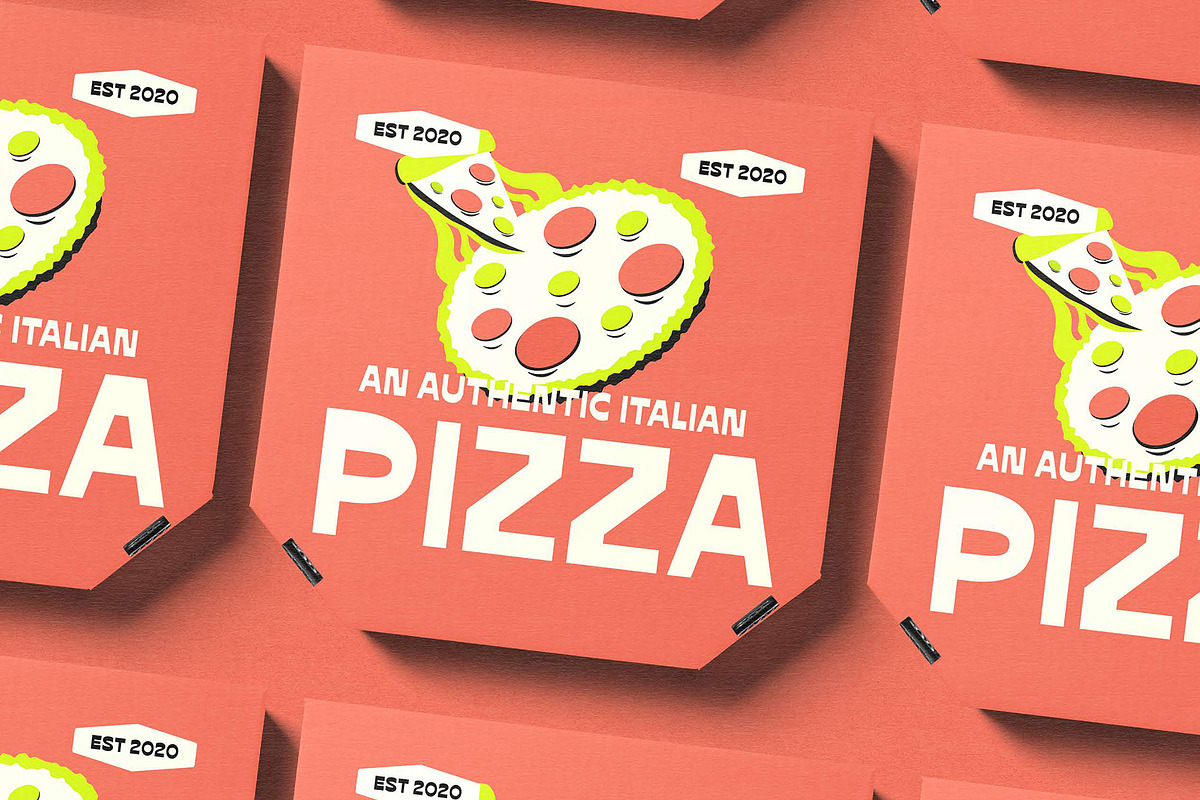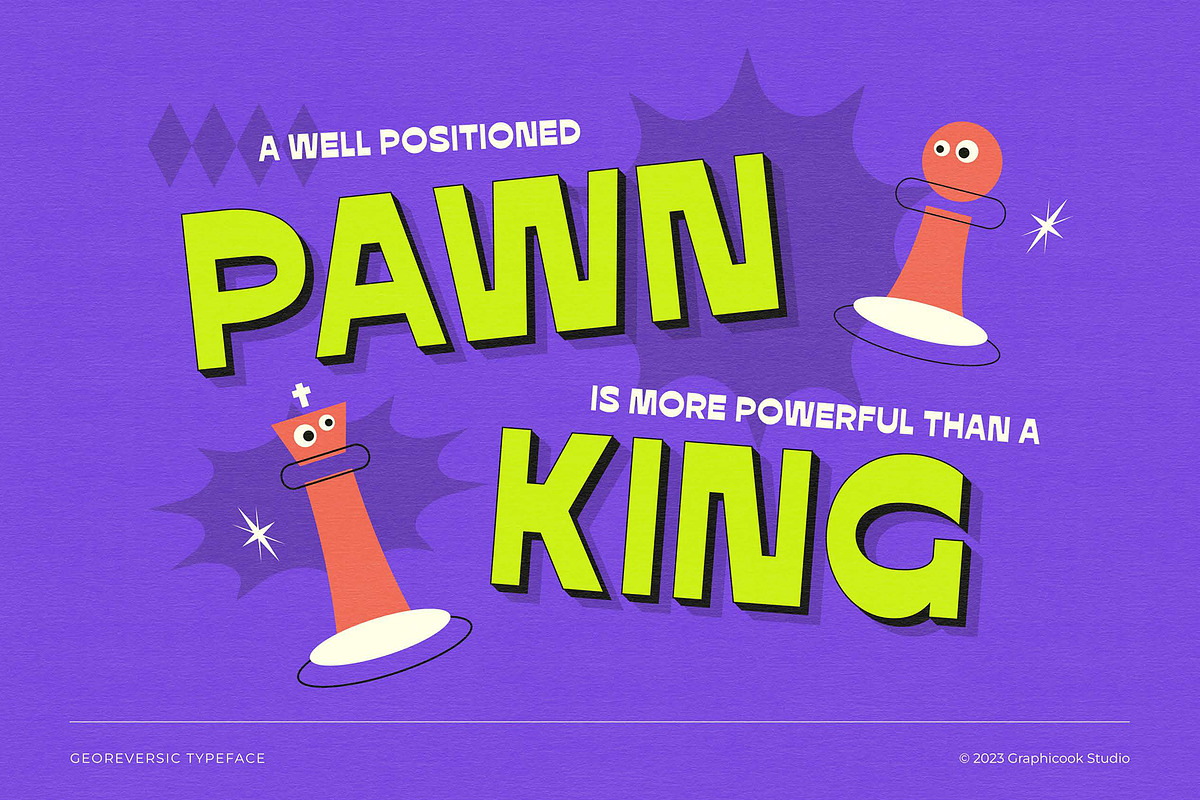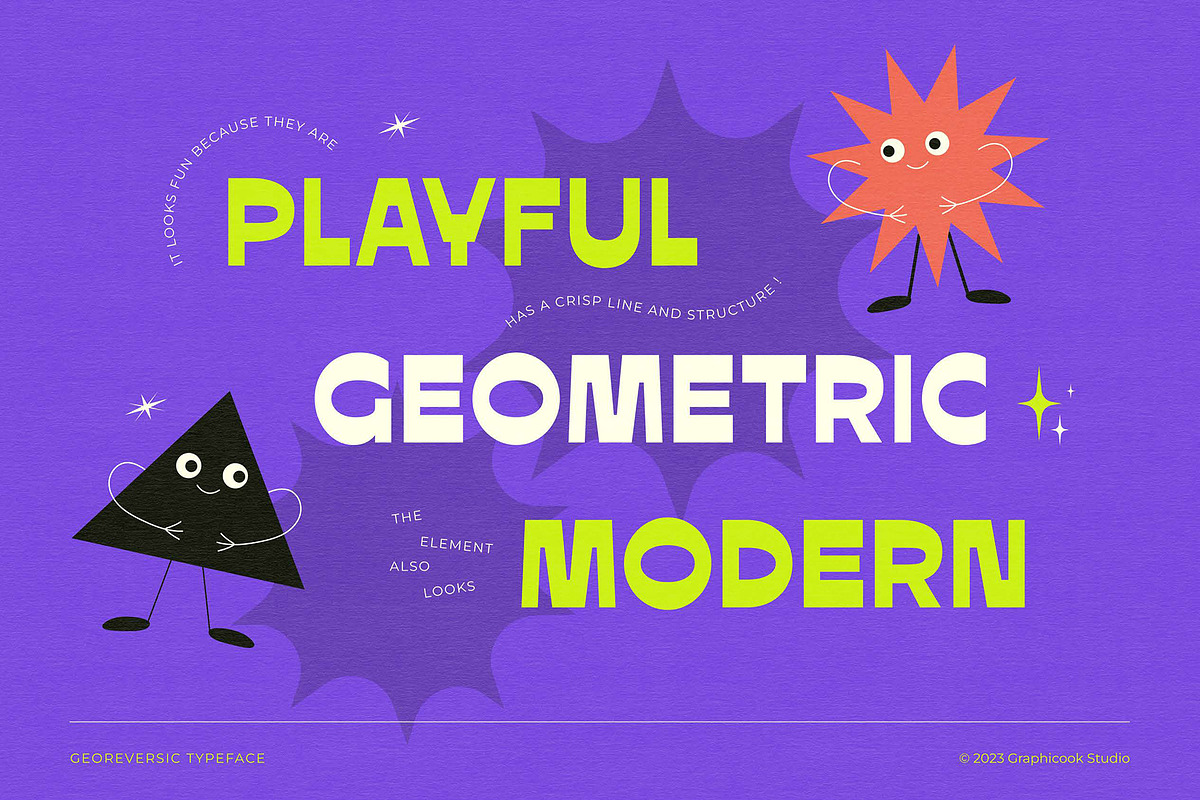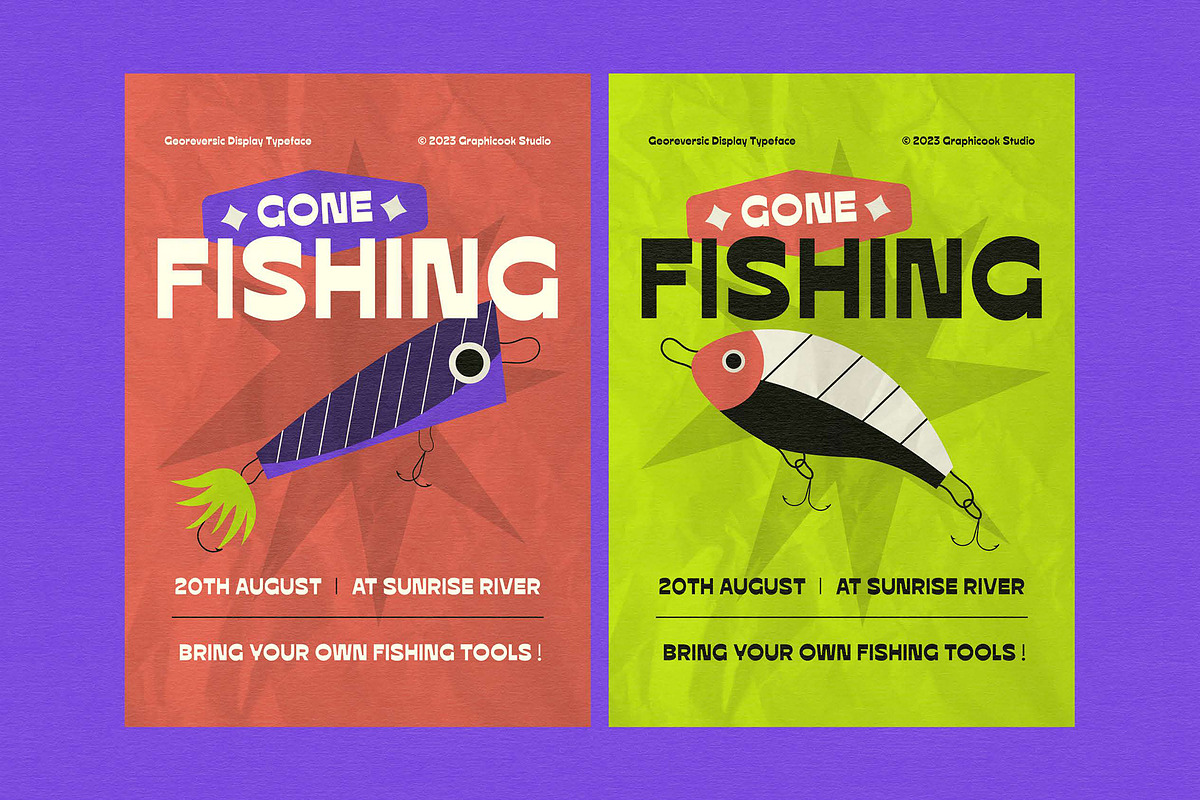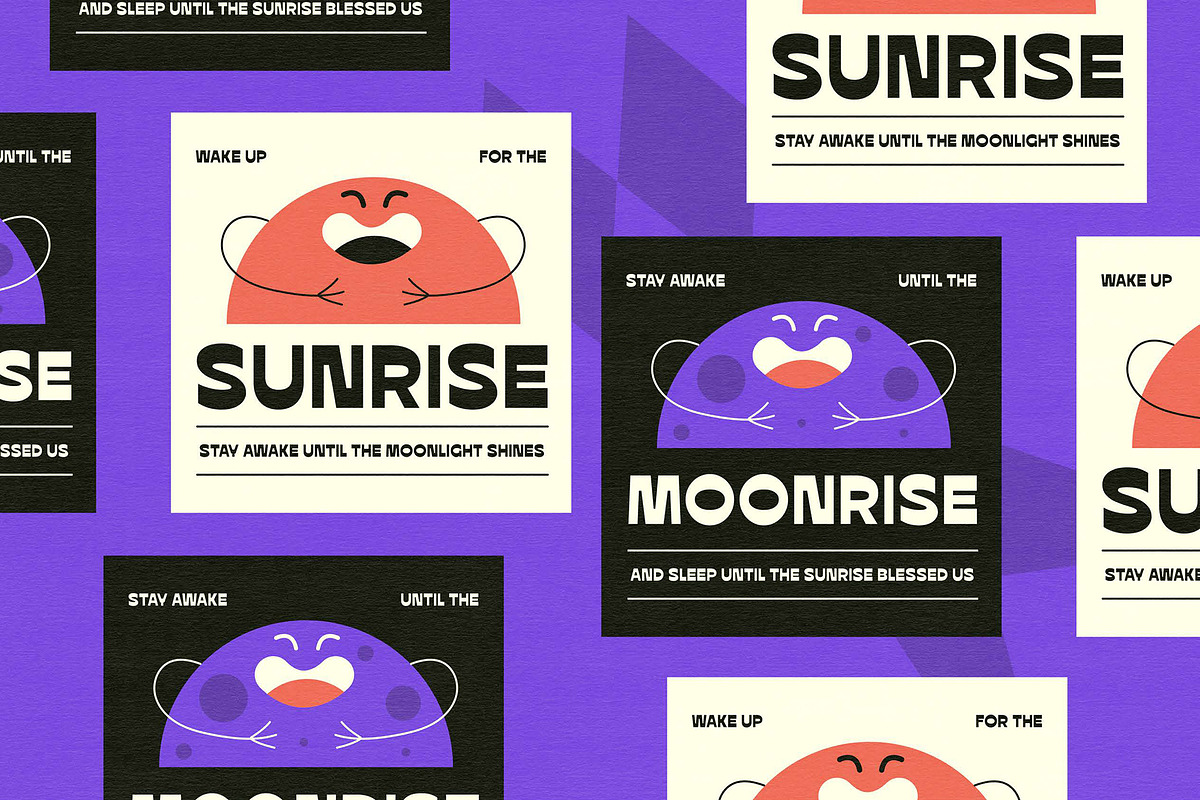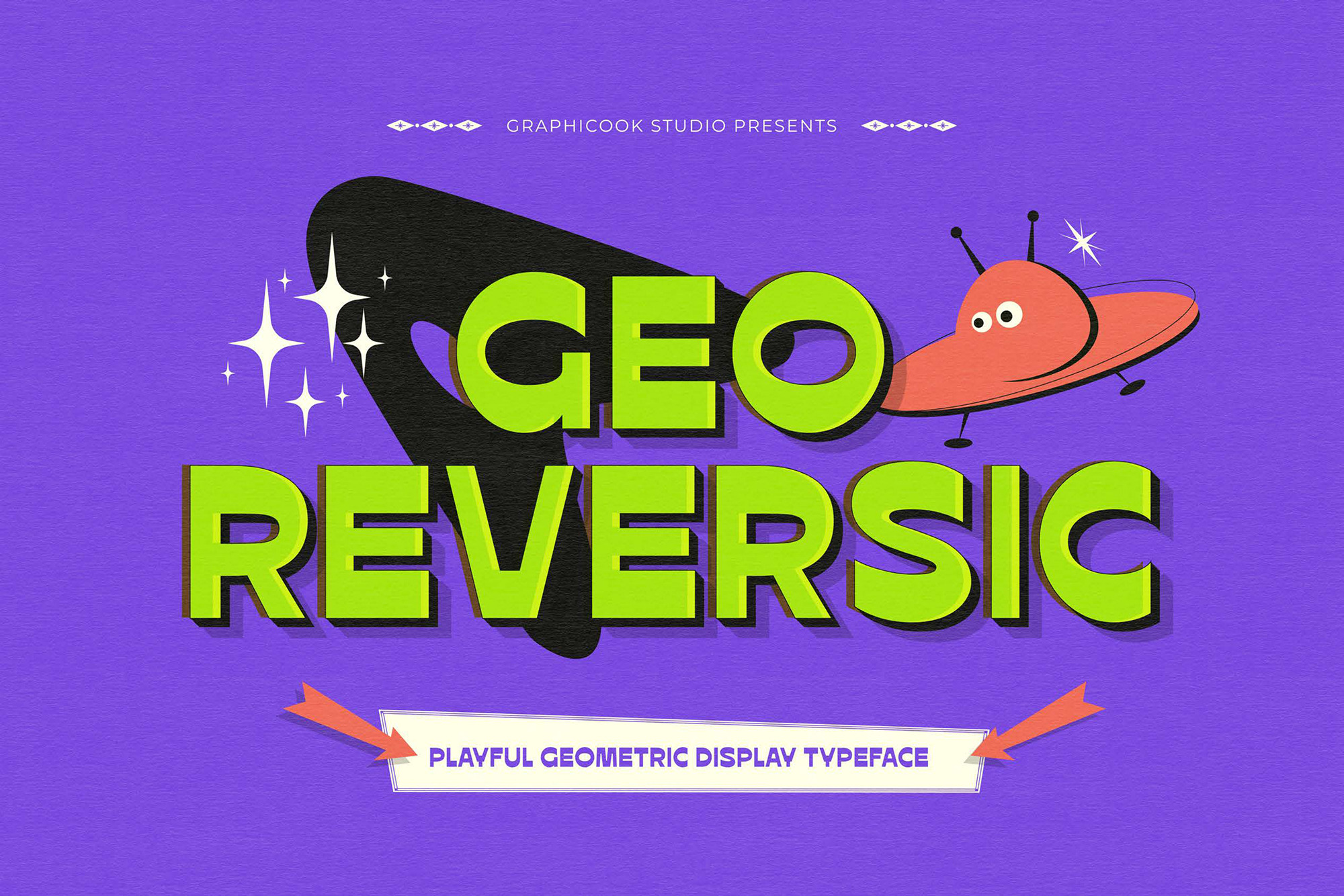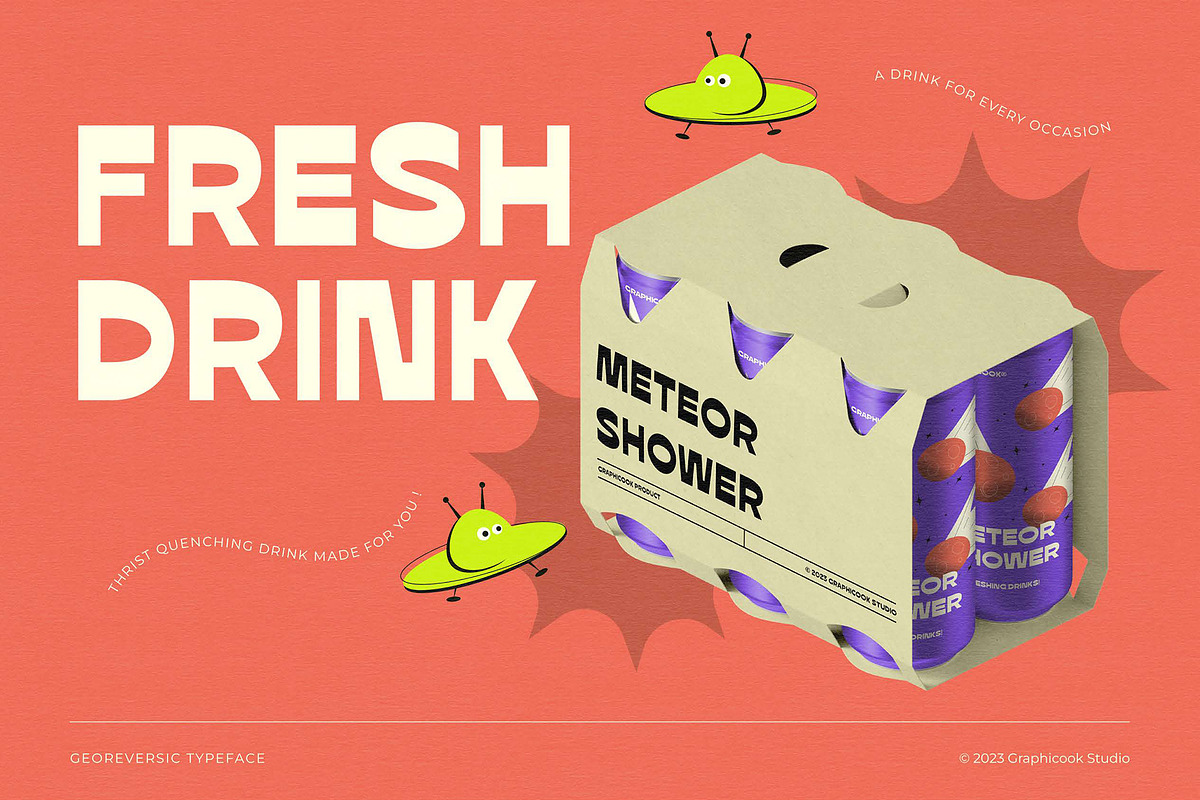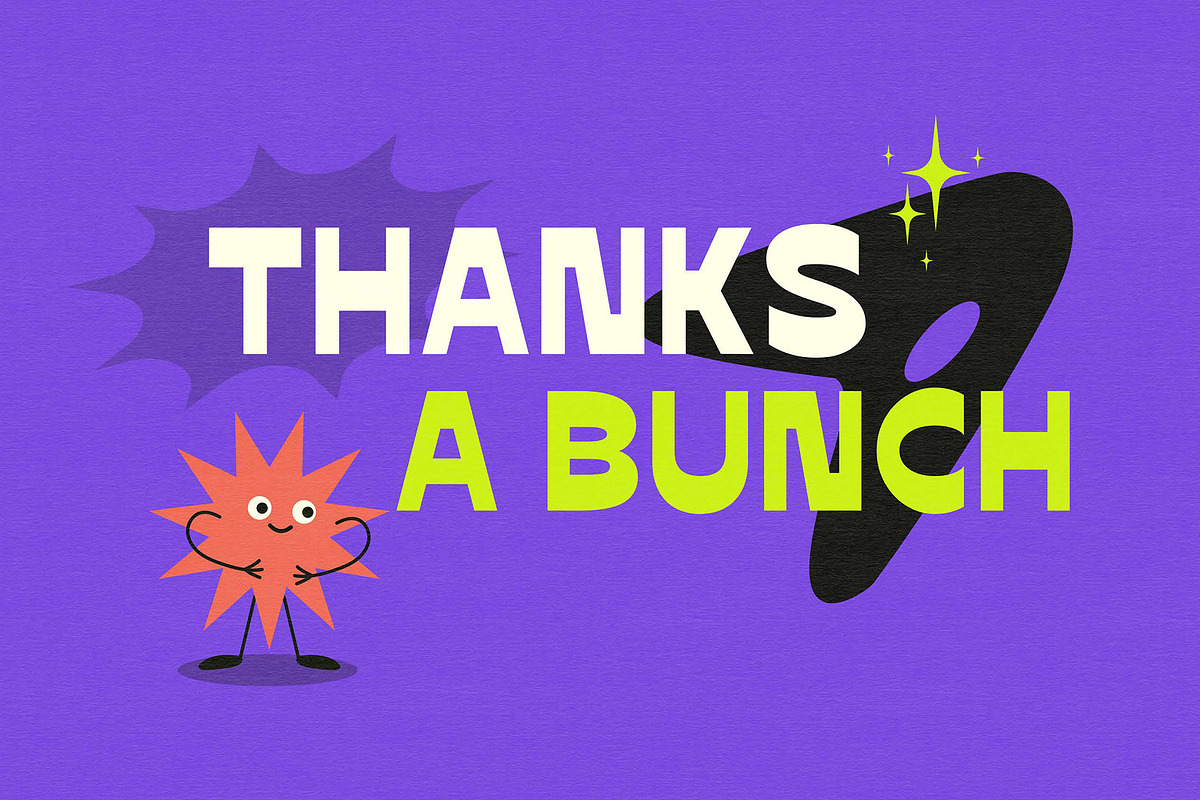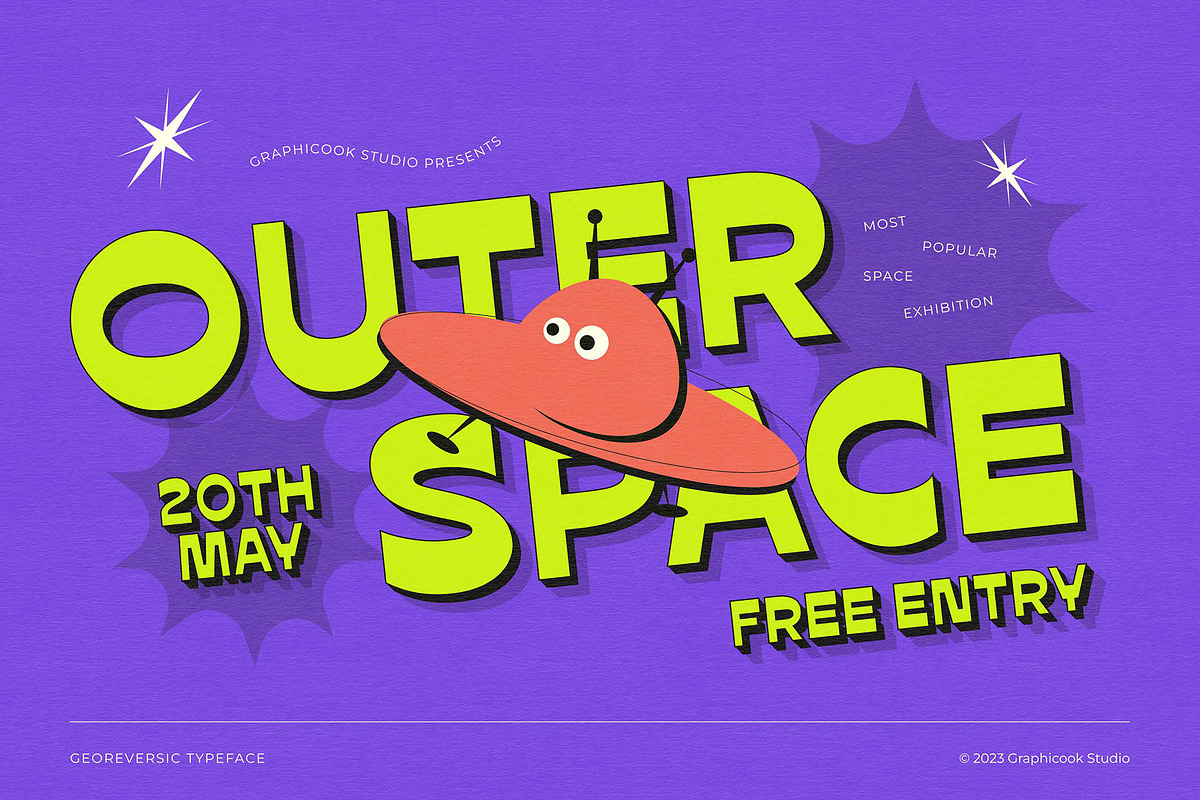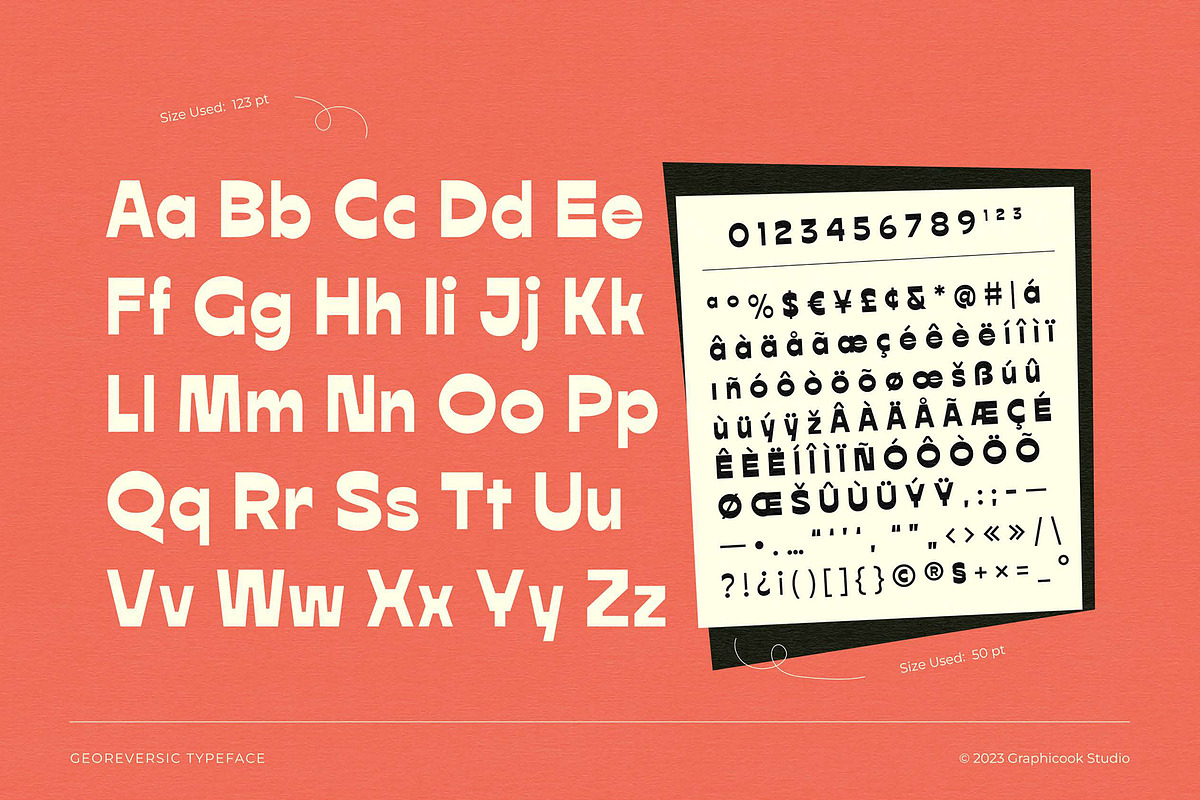
Georeversic Display Typeface
Georeversic is a reverse contrast typeface with a playful, geometric, and modern touch.
Georeversic is perfect for headlines, logotypes, magazines, packaging, quotes, movies, games, cover albums, book covers, and posters, it's a perfect solution for creating eye-catching designs that stand out in any context.